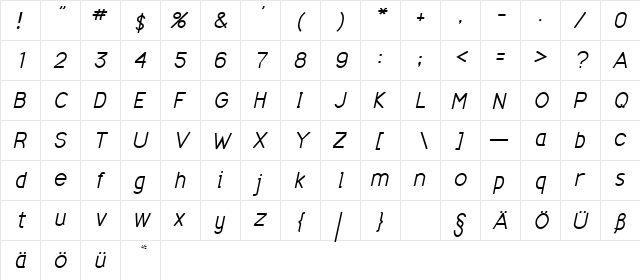
Dude Italic
Design Context for Dude Typeface
Dude takes a measured approach to typography — its balanced proportions and neutral character make it a reliable workhorse for both digital and print work. The slanted form adds forward momentum and visual energy.
Pro Tip: Try Dude for annotation and caption copy alongside an upright companion — the contrast in angle creates a dynamic but ordered typographic system.